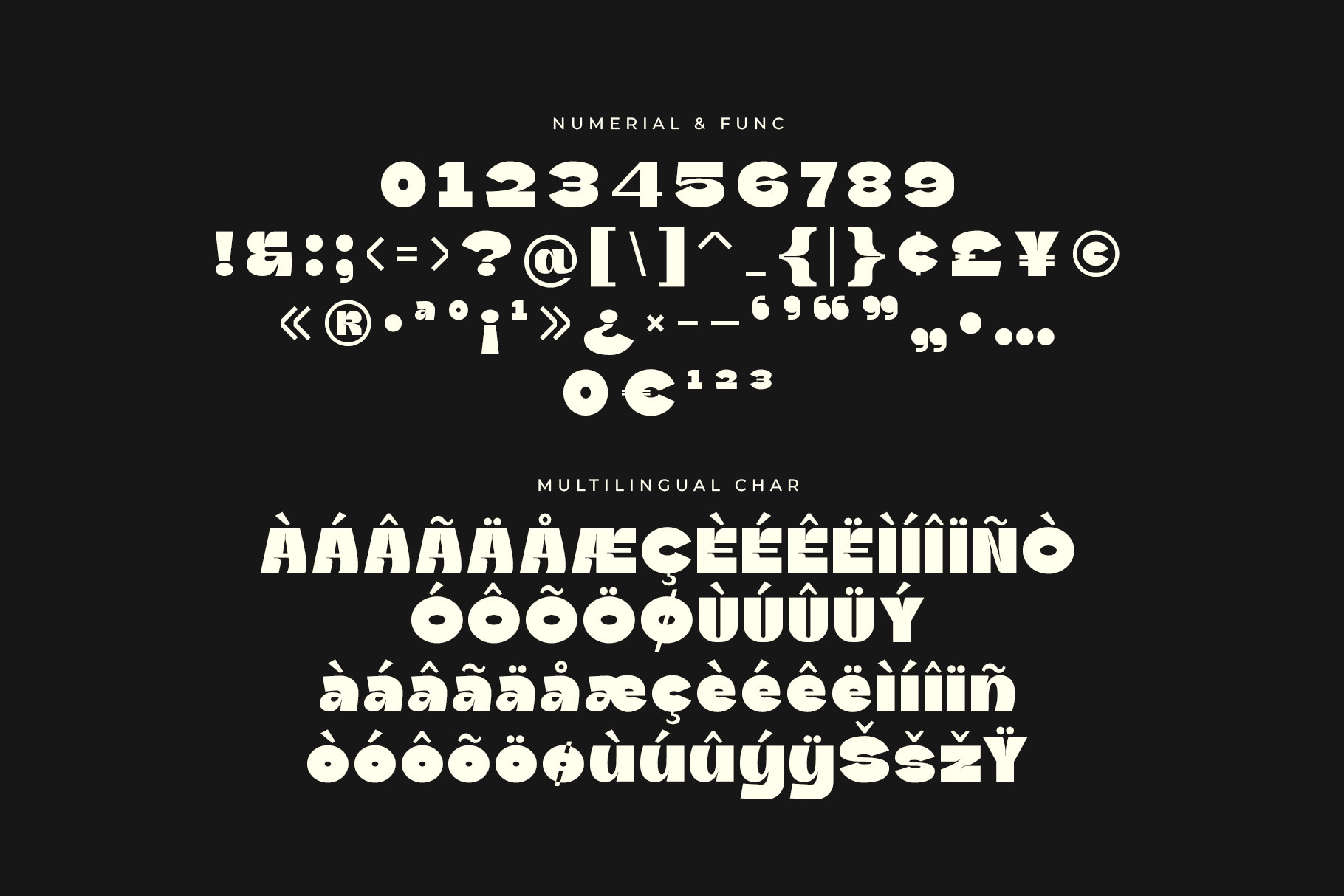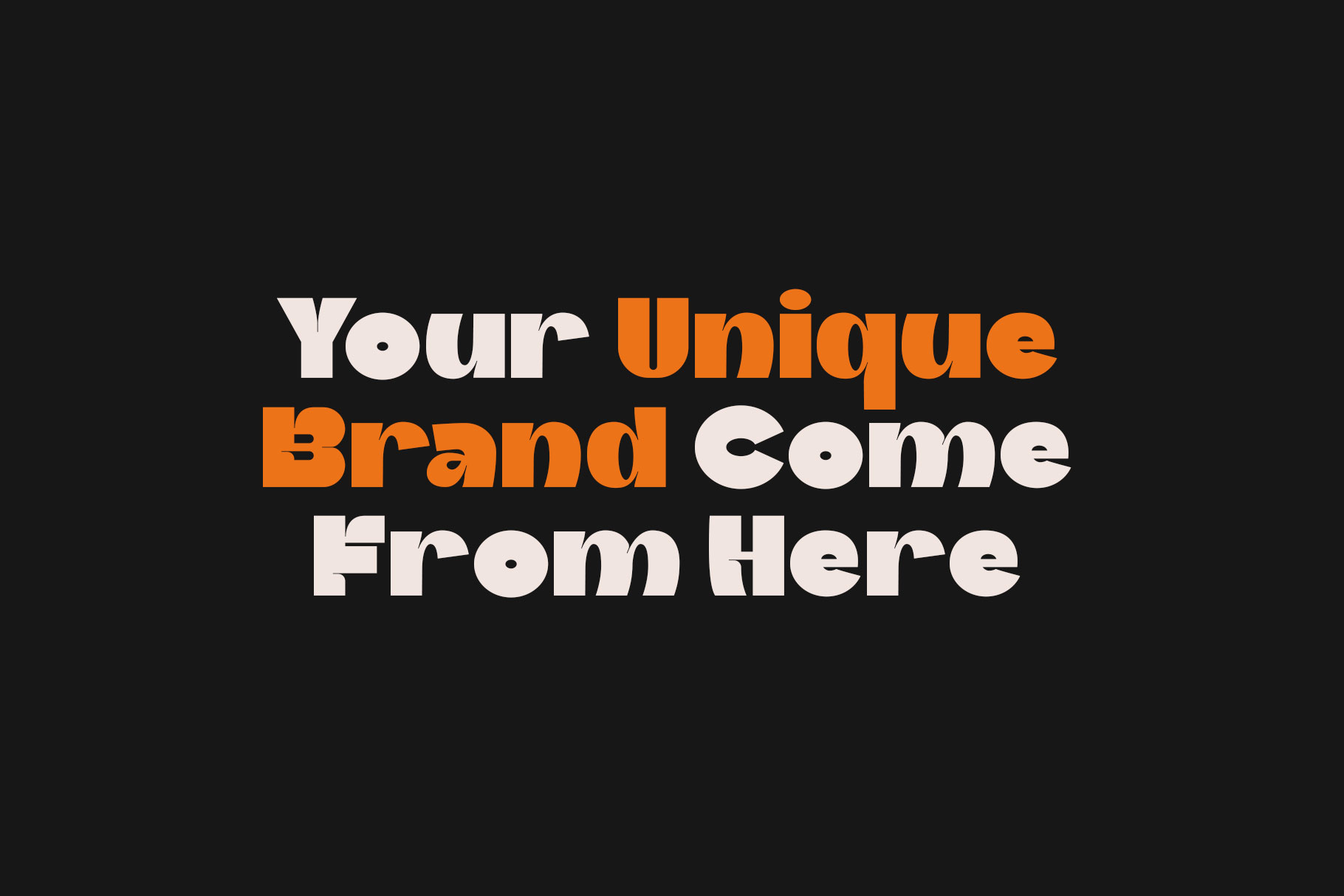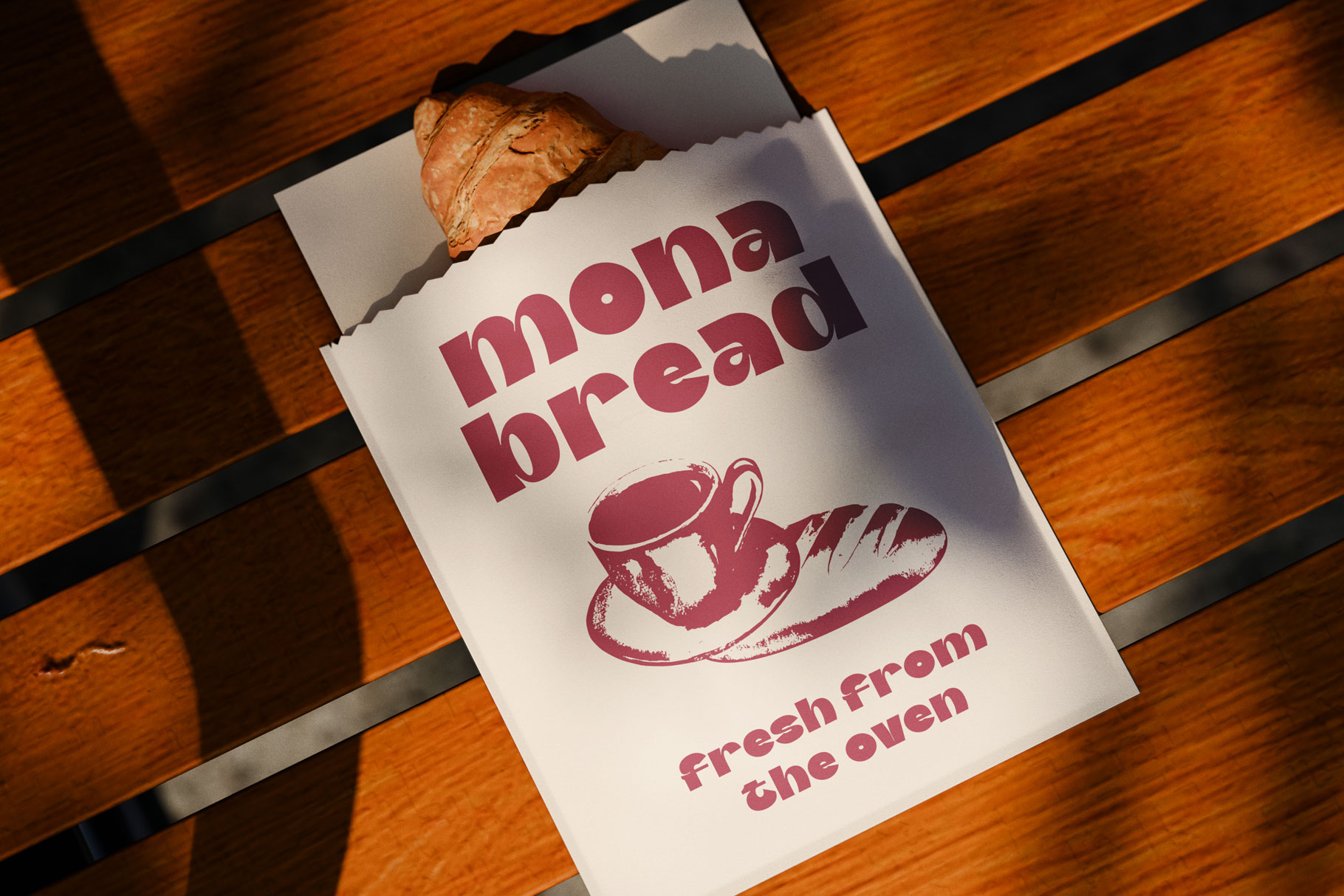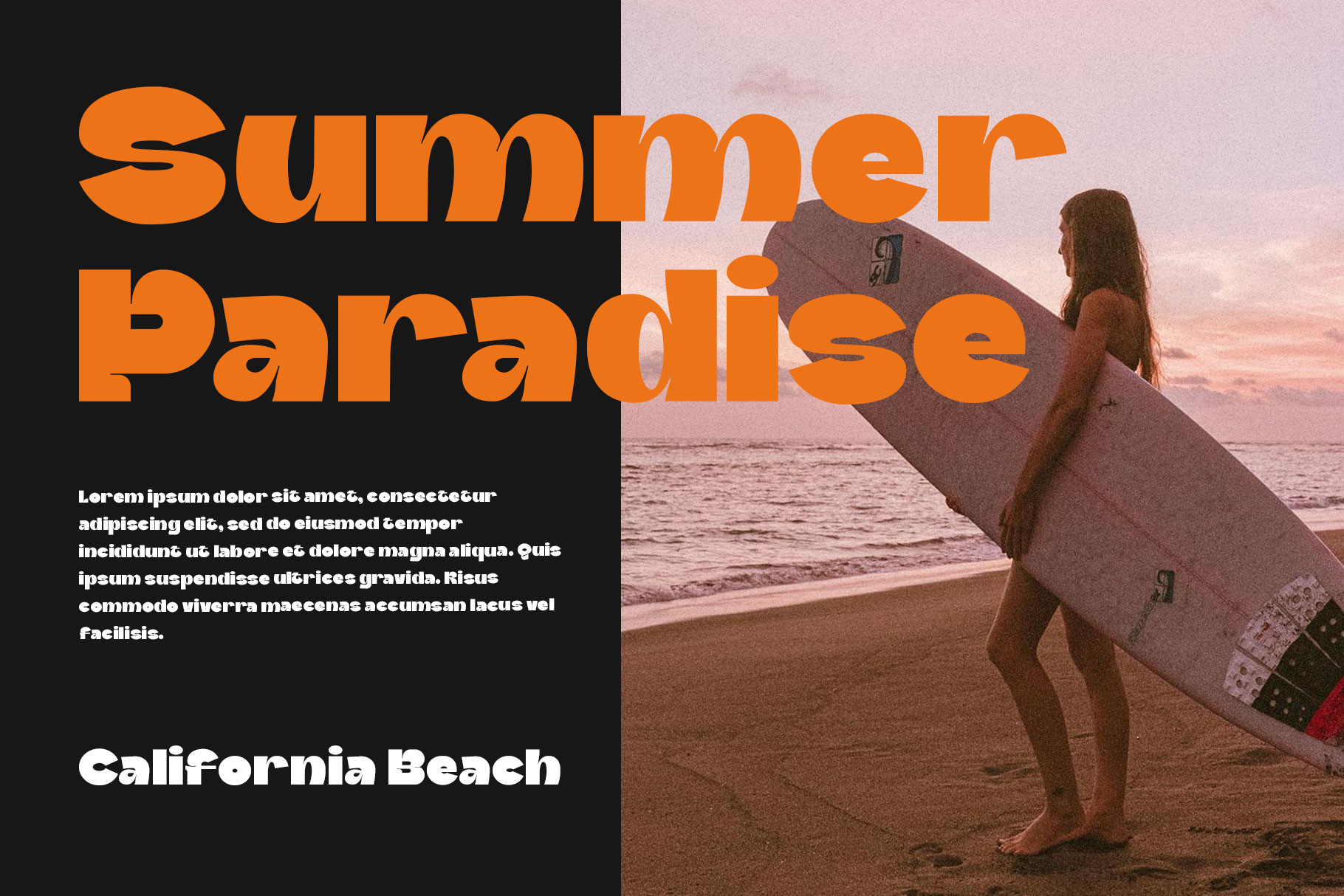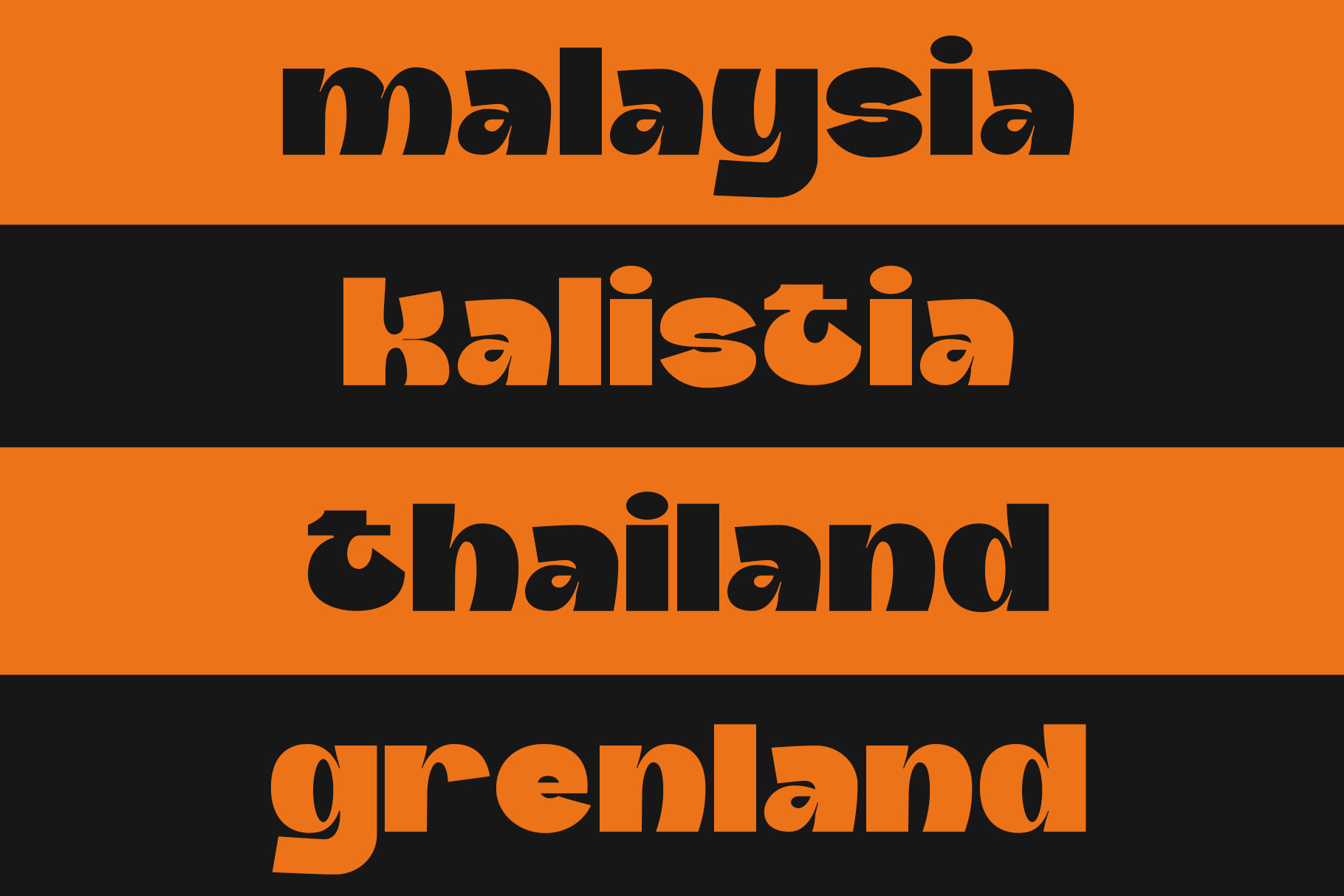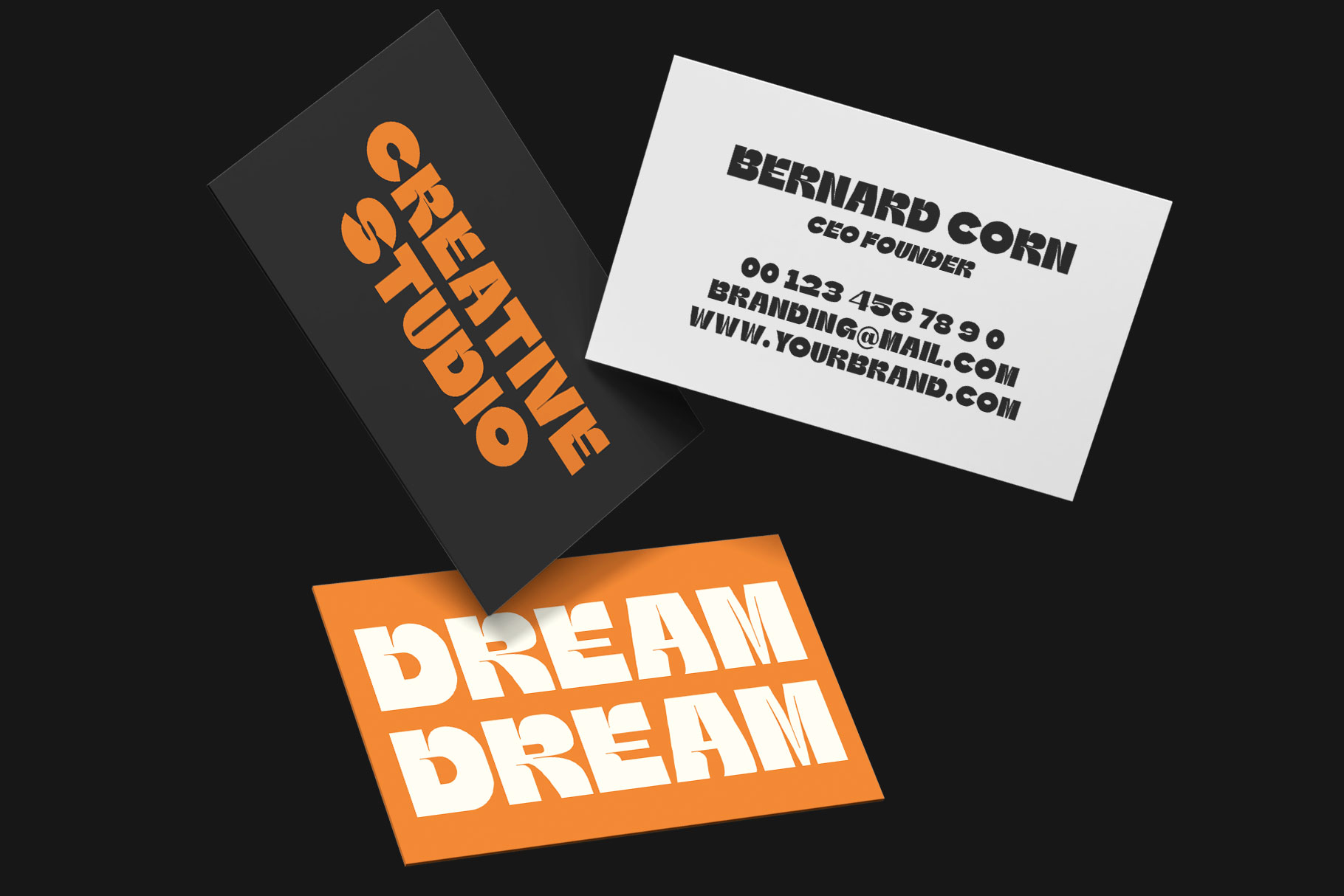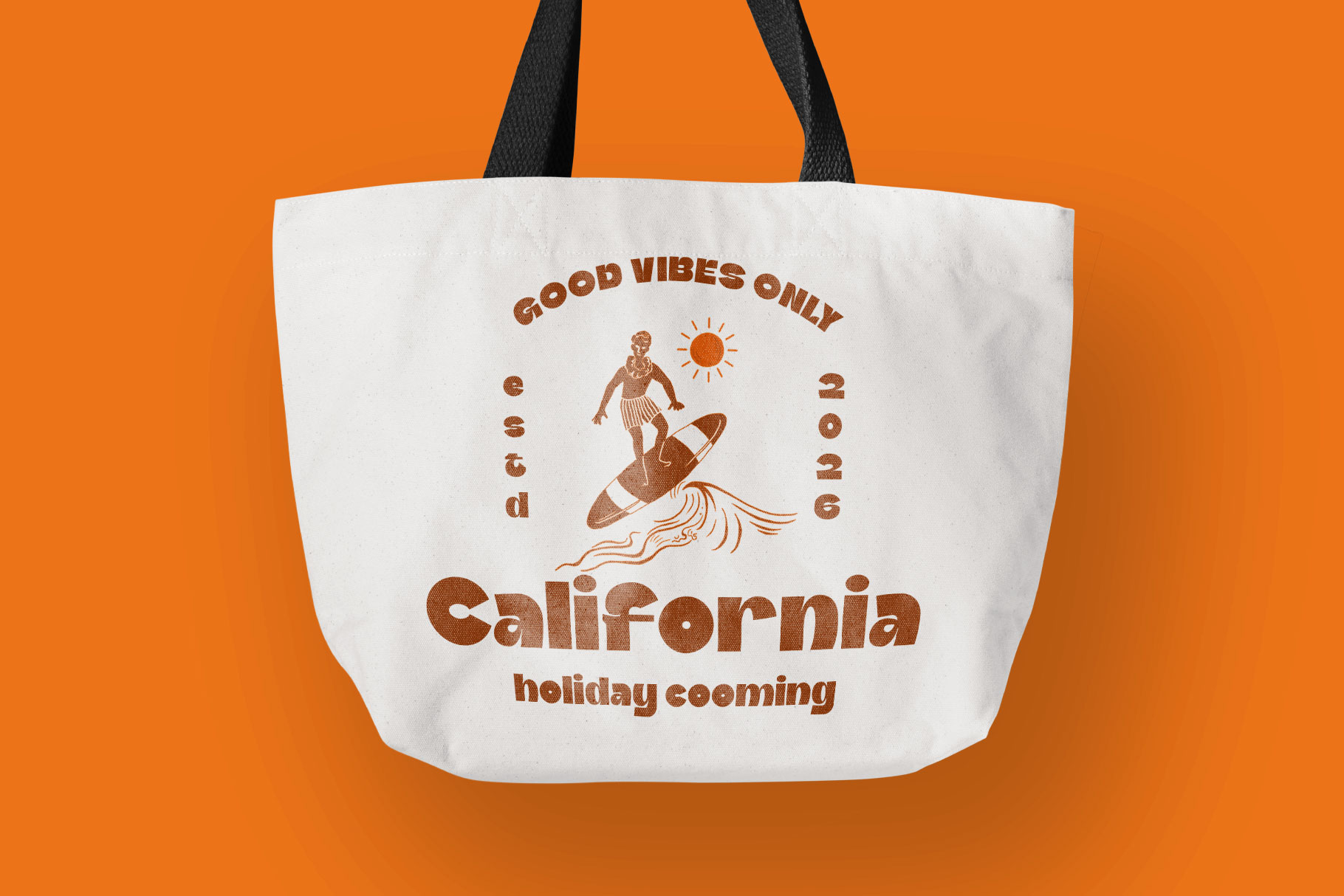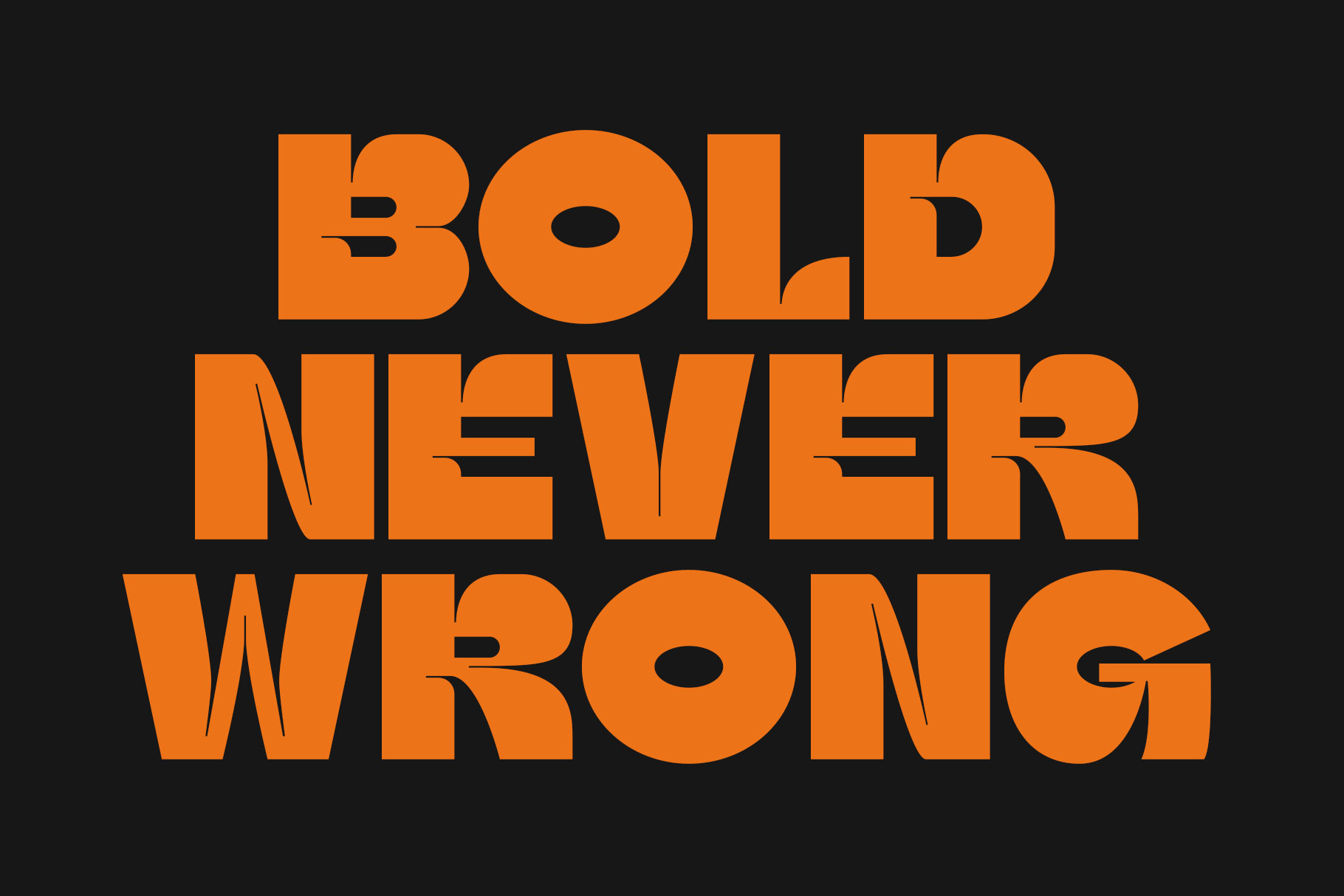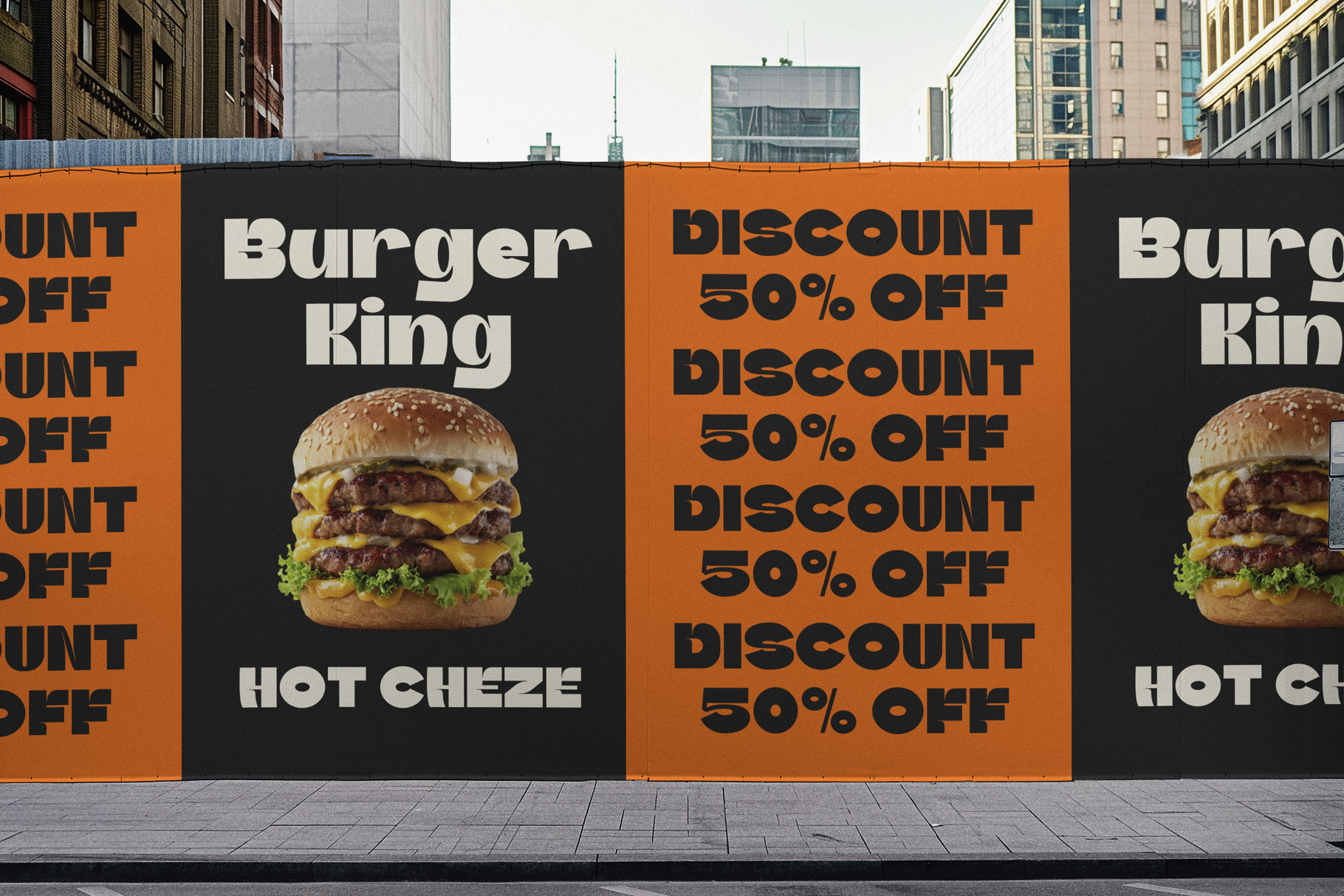
Fontia Unique Bold Font
Fontia is unique bold font with strong but playful vibes. Fontia is a perfectly choice for any creative endeavor, creating, modern, lifestyle design such as logotype, title, cover, branding, invitations, wedding designs, display and magazine, social media posts, advertisements, printed quotes, product packaging, corporate brand, product designs, labels, photography, watermarks, special events and any other project with fun touch.